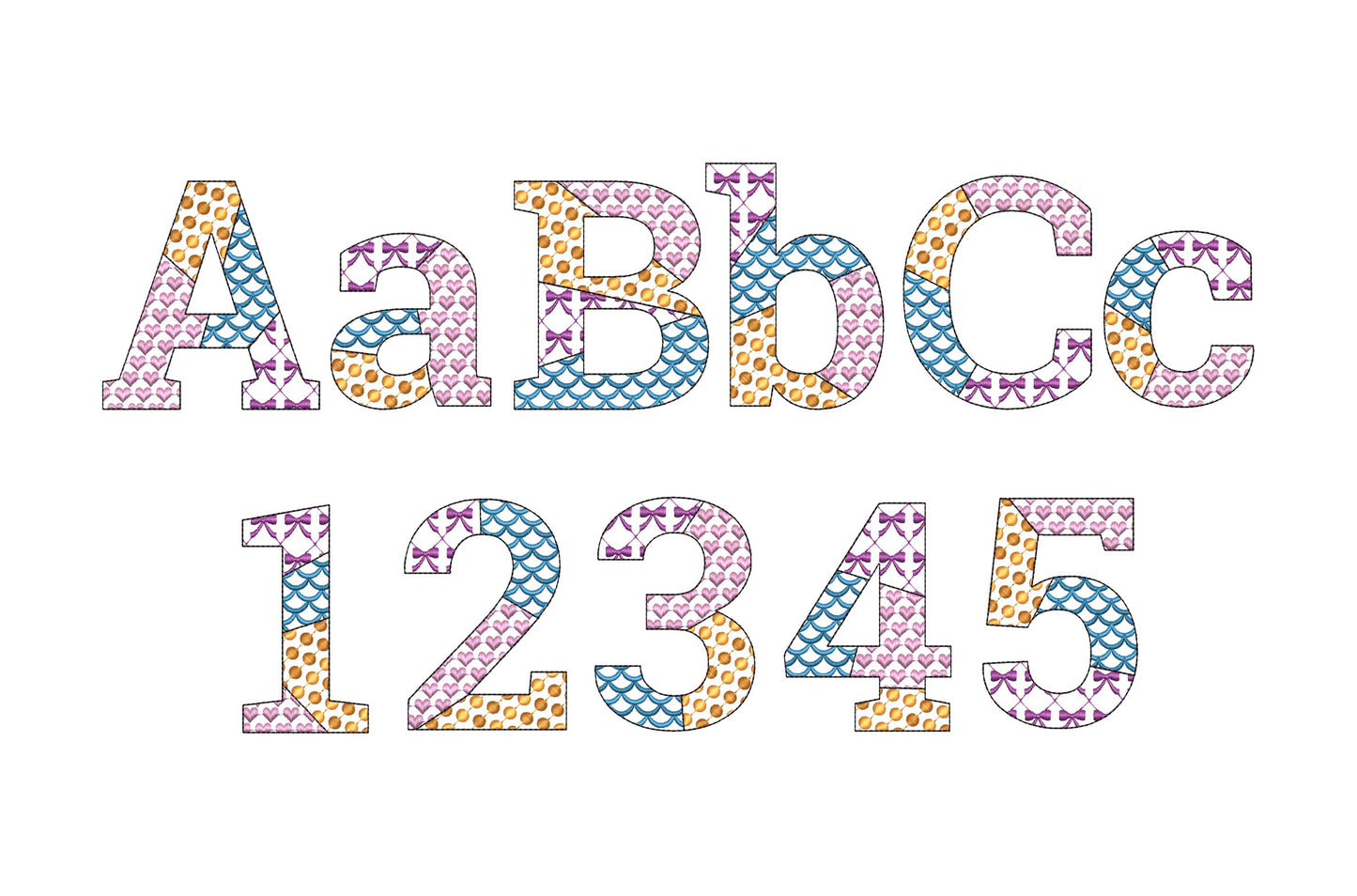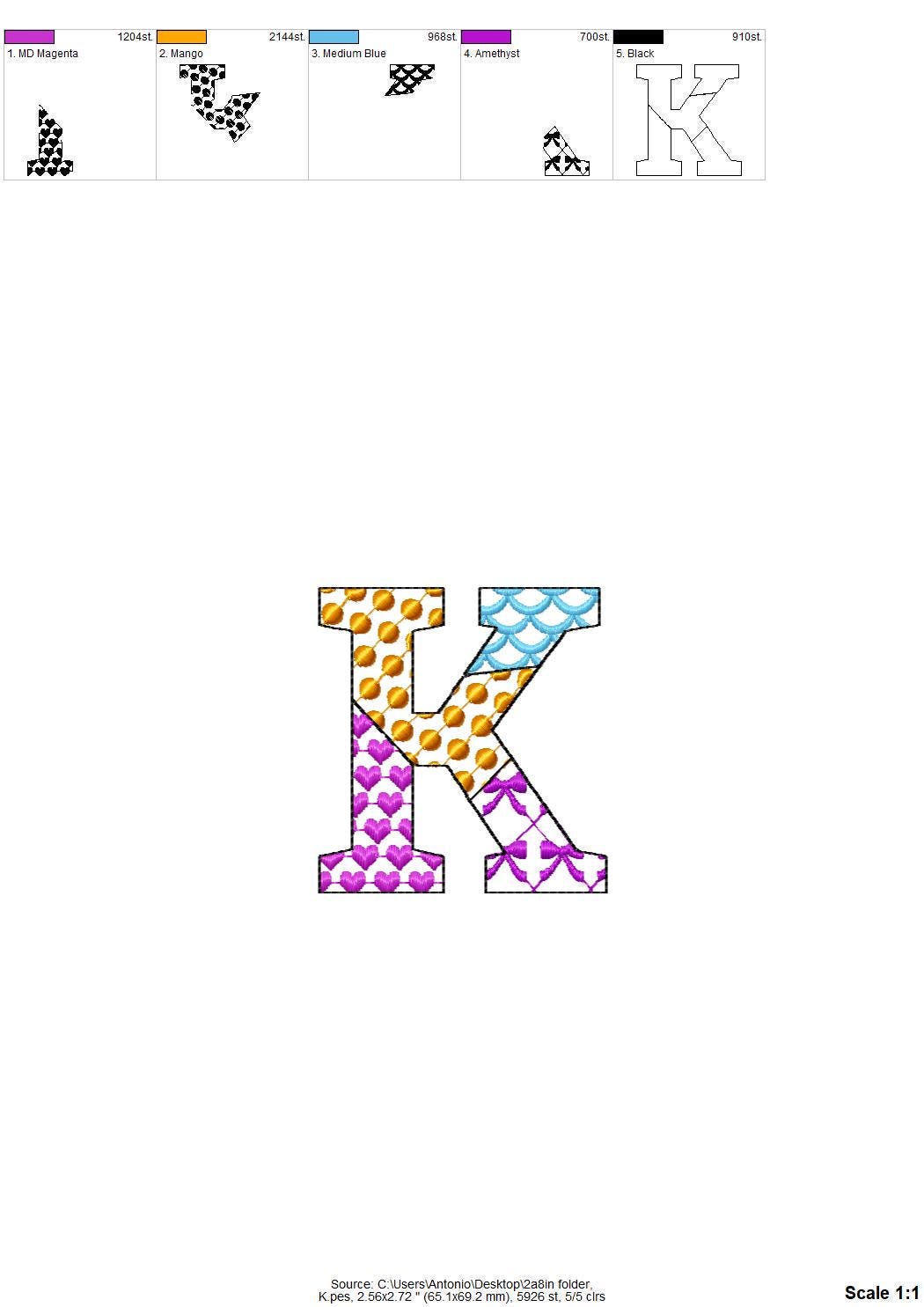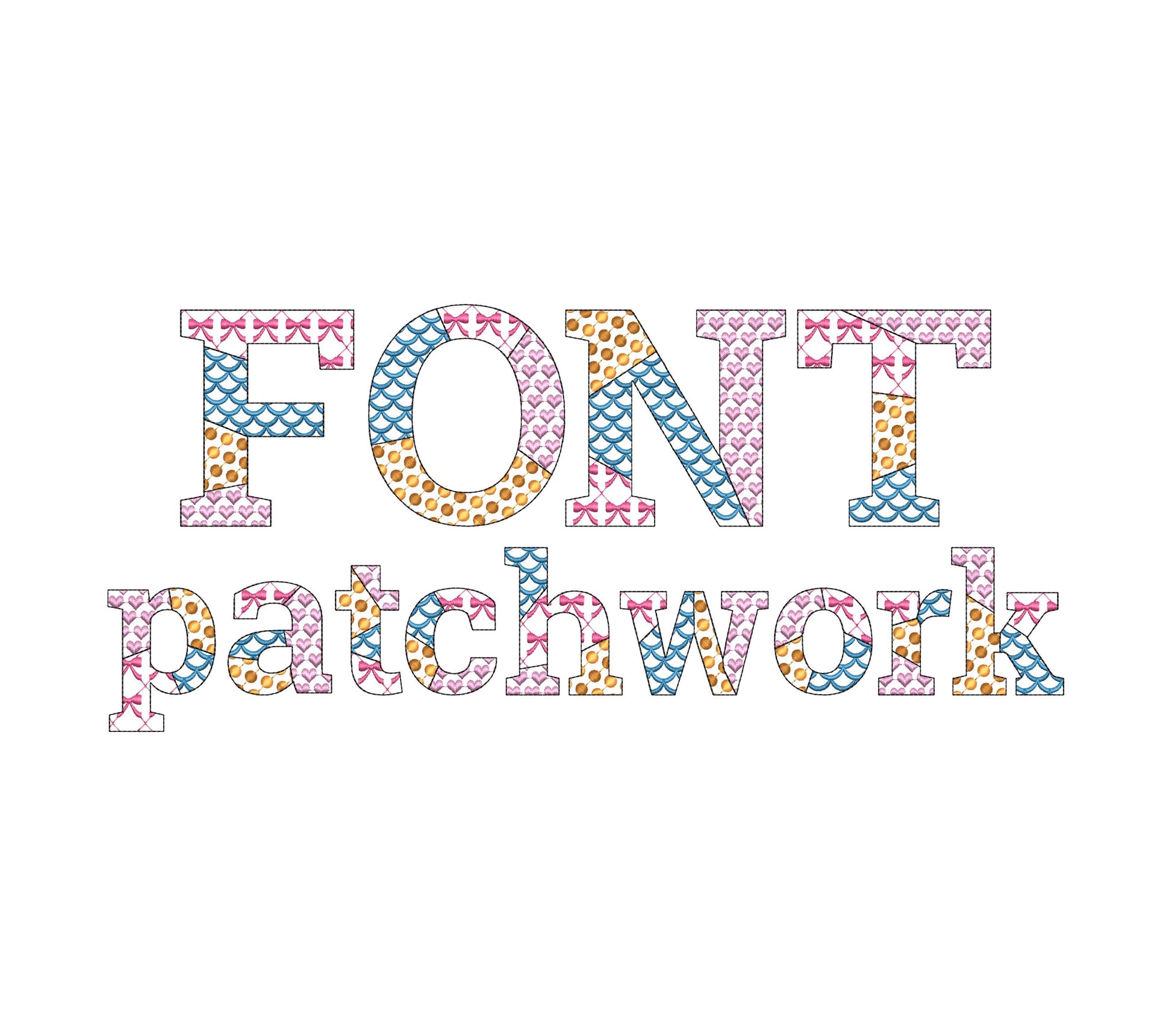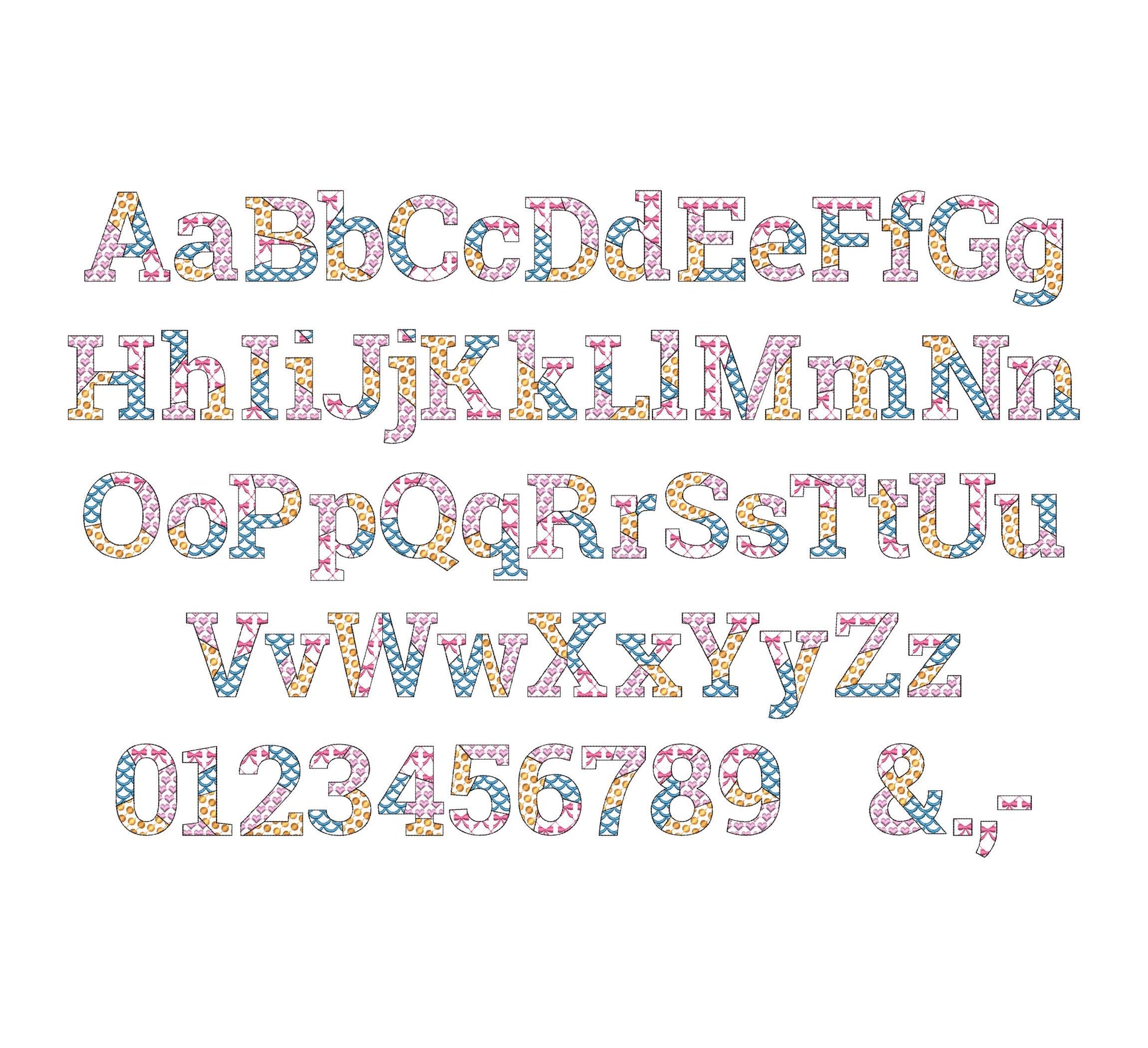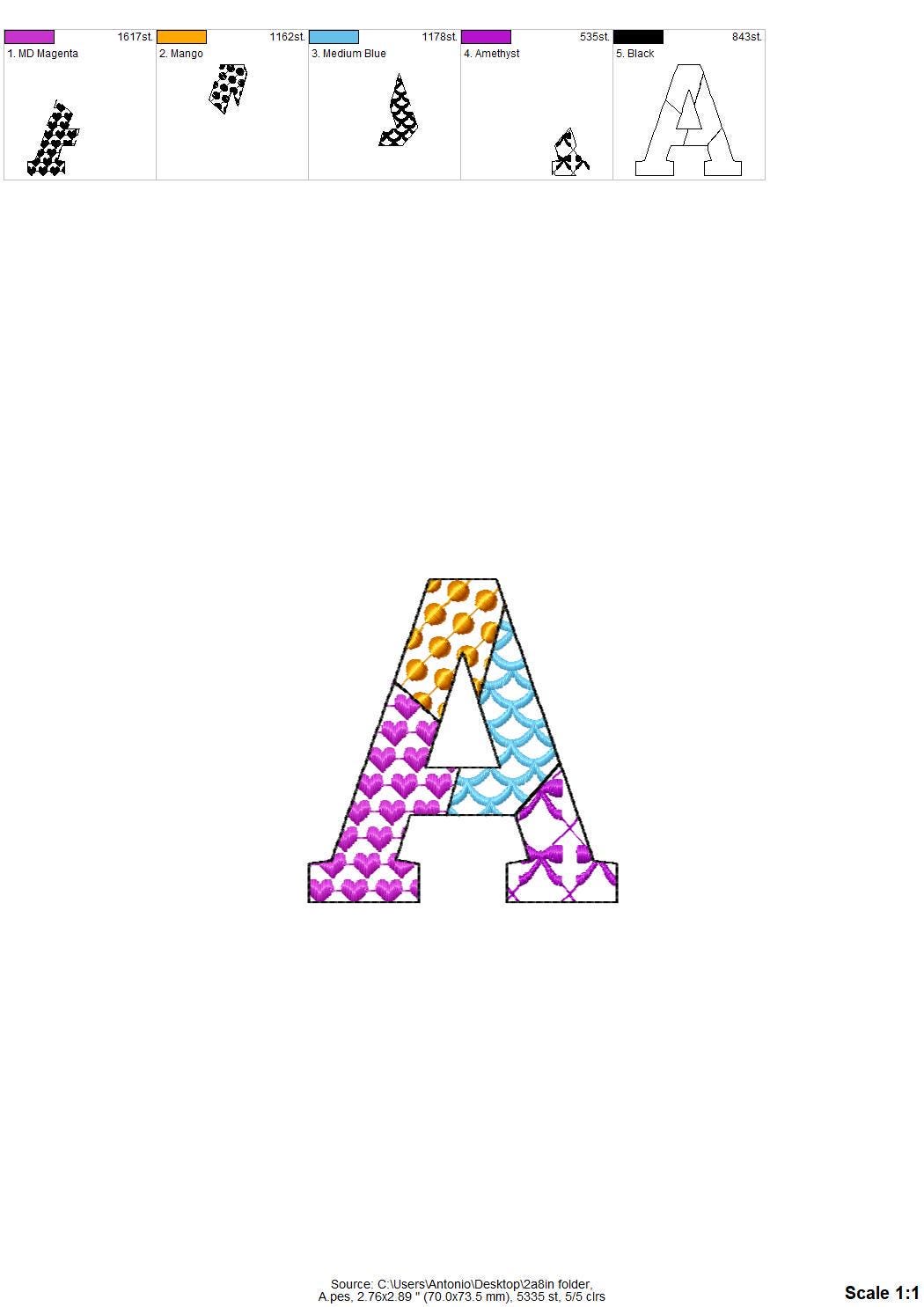
Patchwork Patterned Block Font
Or click to open the linkA girly summer patchwork font filled with tiny bows, hearts and dots. Sweet for girls' shirts, pillows, tote bags and monograms.
Uppercase and lowercase letters, numbers 0 to 9 and punctuation. Five sizes: 1.8, 2.3, 2.8, 3.4 and 4 inches. The patterns are stitched inside an outline and the fabric shows through.
- Patchwork patterned block font
- Uppercase, lowercase, numbers 0 to 9, punctuation